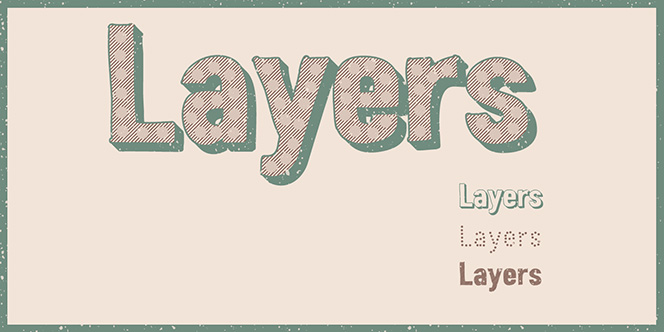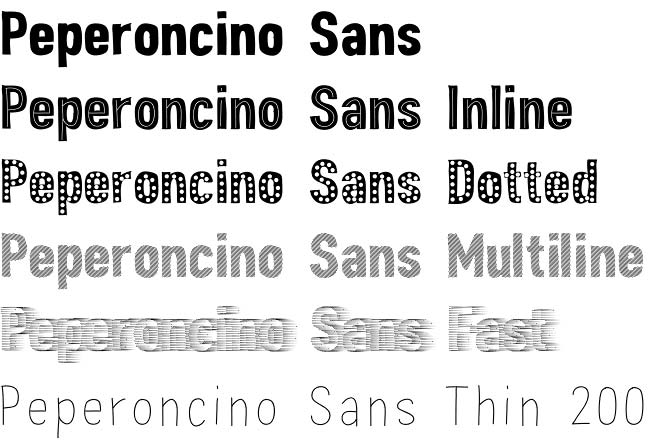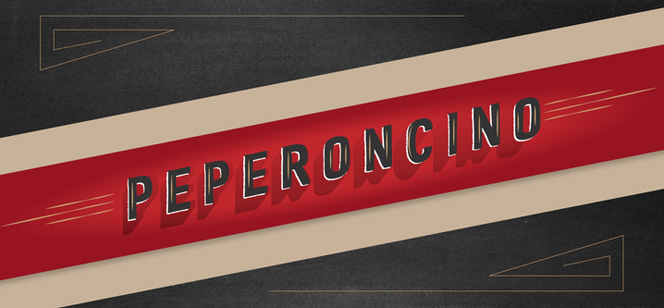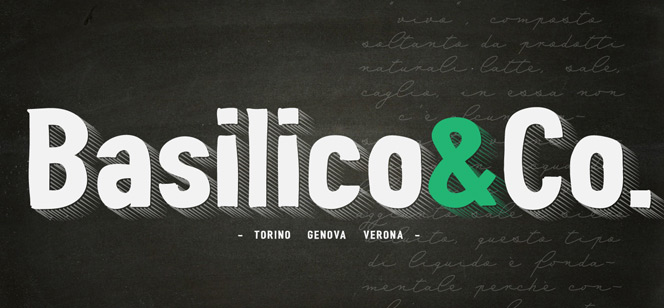
Peperoncino Sans font
Peperoncino Sans font family could be described in one word – Diversity. With the amazing total of 34 fonts this collection opens a new page in multi-layer typography providing plenty of combinations in its use. Peperoncino’s initial weight is hand-drawn with marker using the skeleton of black condensed Grotesk. Outlines are rough, hiding some deliberately made imperfections and thus making the whole family charming, friendly and original. Peperoncino features lots of styles inside those 34 fonts – starting from additional 4 light weights of the original Peperoncino font and moving forward with various attractive shadow effects, textures and inner decorations. Providing a countless number of combinations between each style it is really nice to discover that working with this family is really easy – all fonts are created with same metrics so you could easily create multilayer typography without need to make any additional aligning or scaling. As we said above Peperoncino has very diverse character and is excellent choice for many and different design needs like artistic vintage posters, t-shirts, logos, food packaging and many more. Because of its general retro style Peperoncino is perfect for letterpress as well as for serigraphy especially if you like to see overprinted shadows, visible trapping effect and of course solid spot colours on textured paper with embossing.
Nice, useful and friendly Peperoncino will surely change your design by adding a load of extra emotions, colour and attractive effects.